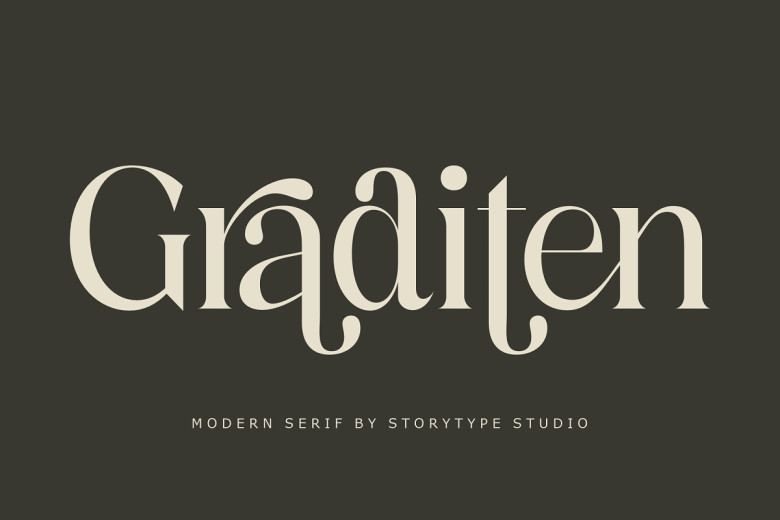
Graditen Font
Graditen Typeface, created by Storytype, A serif modern and classic typeface that has own unique style & modern look. This Typeface is perfect for an elegant & luxury logo, book or movie title design, fashion brand, magazine, clothes, lettering, quotes, and so much more.
Graditen Serif Typeface